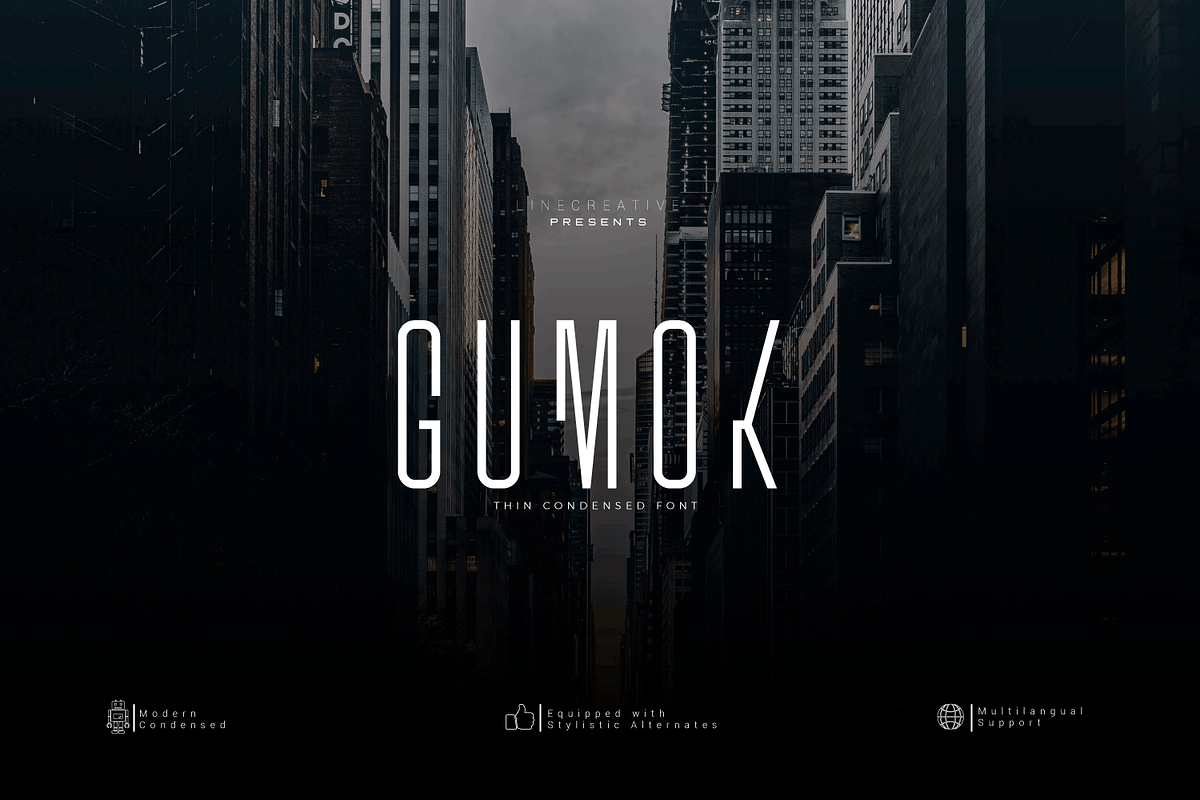
Gumok
Gumok - Ultra Condensend font and Minimalis Character, It's Perfect for logo, name card, magazin layout,headers, or oven large scale artwork
Gumok- A clean San serif font including Upper & Lowercase characters(ALL CAPS),
Stylistic alternates Character (9 Character)
Supports Multi linguage (Latin Western Europe), Numbers and Punctuation